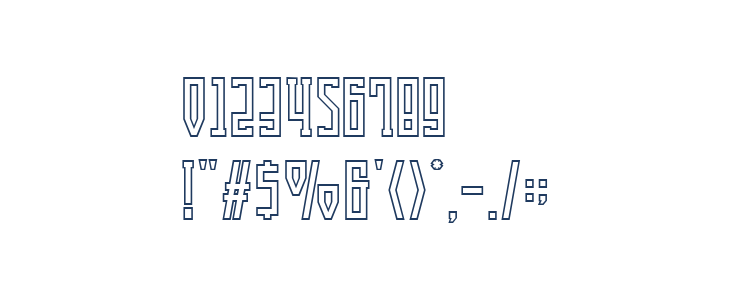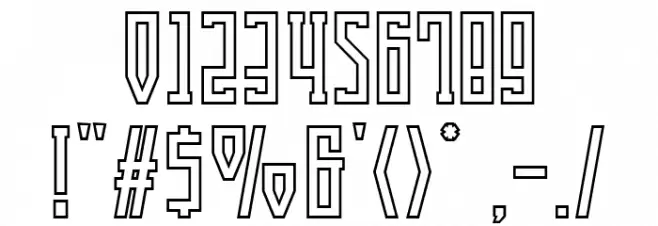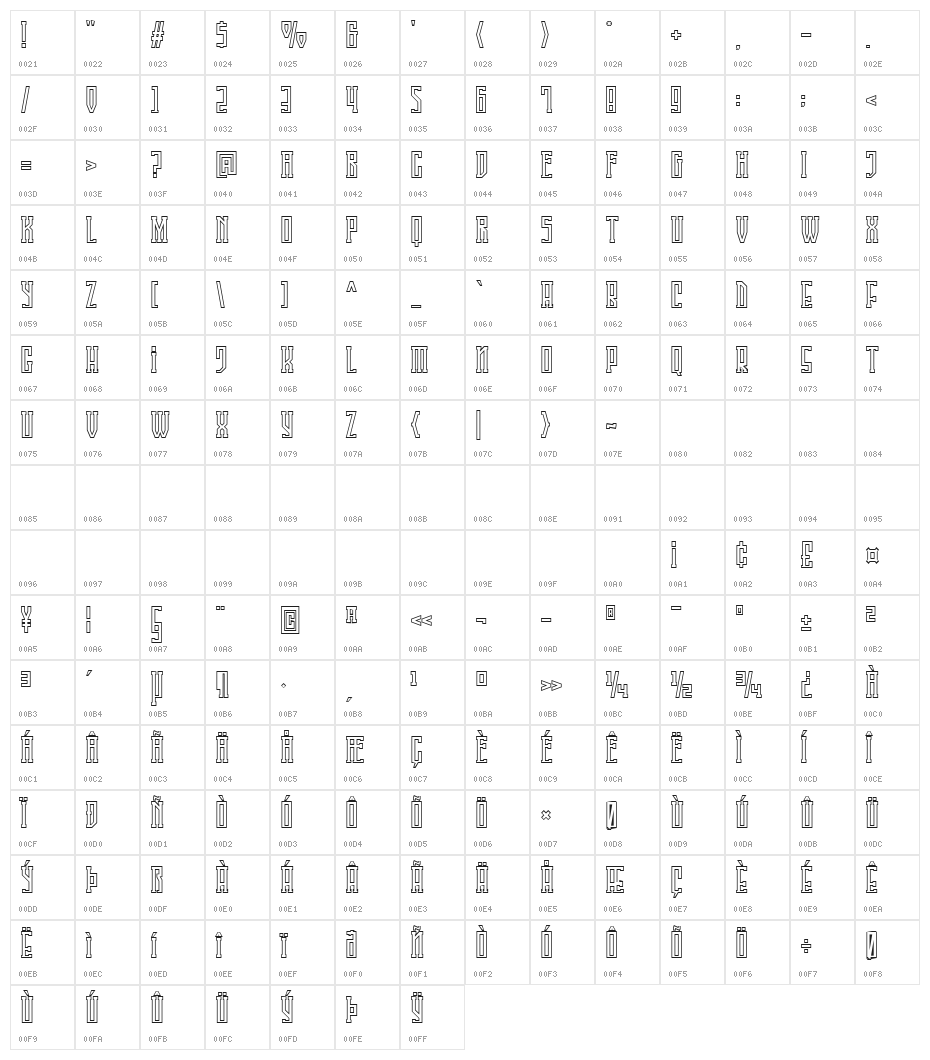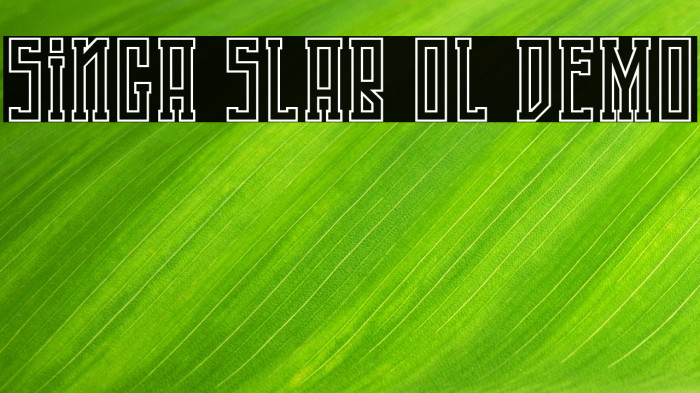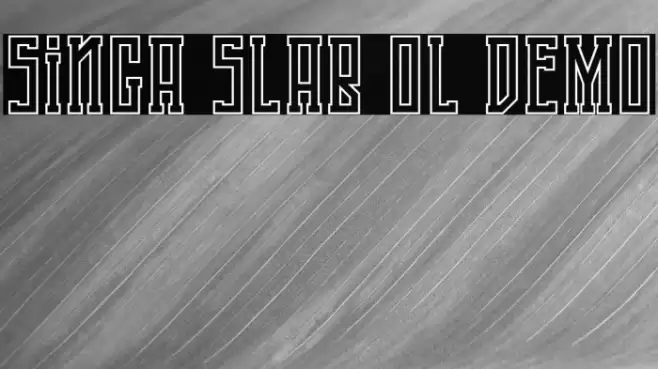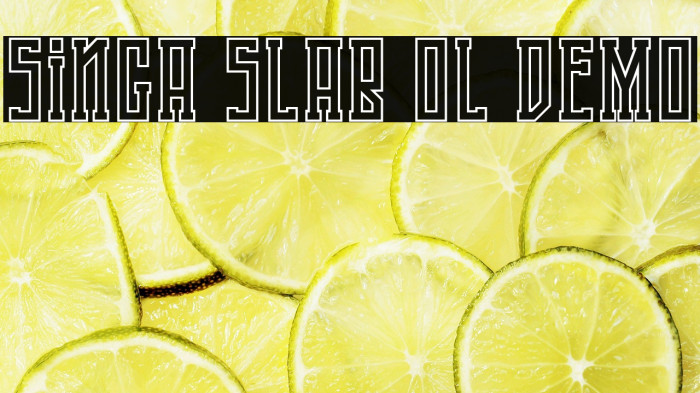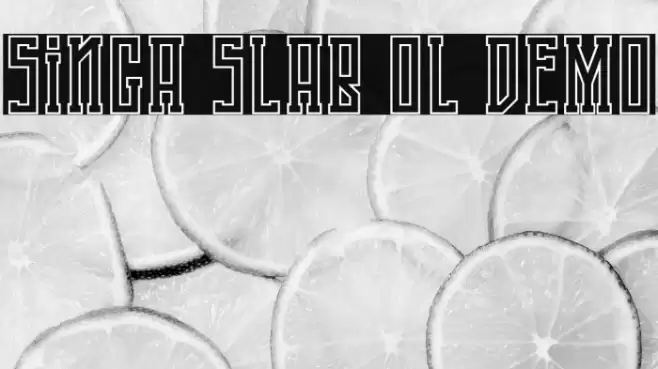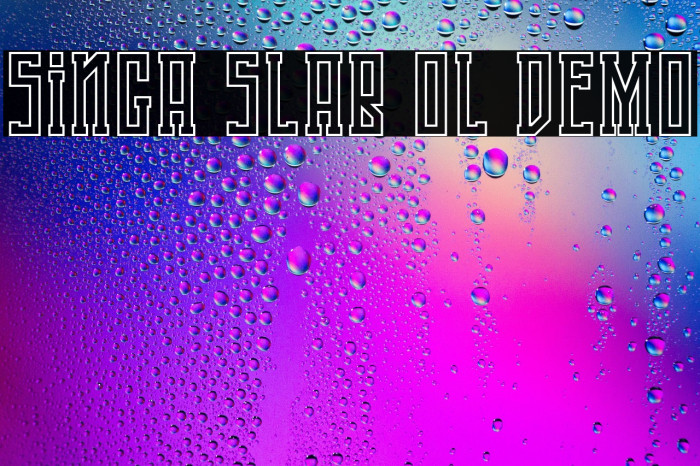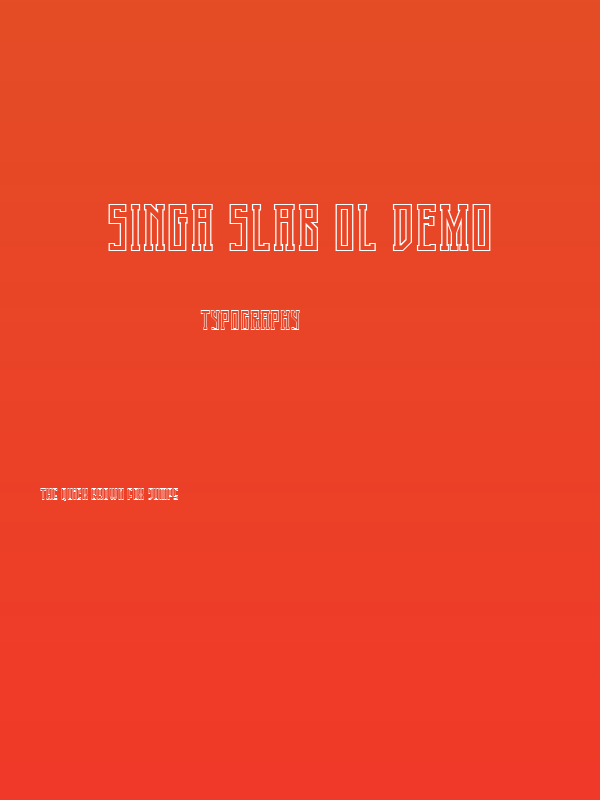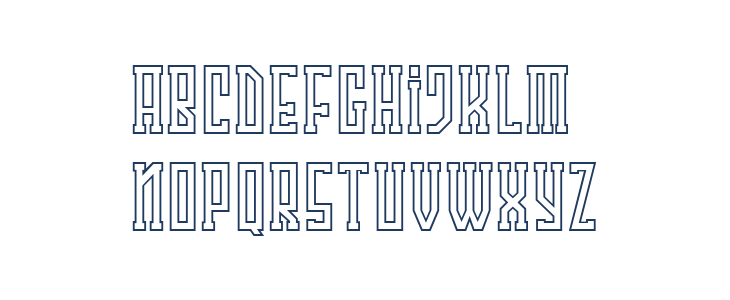
Singa Slab OL DEMO Font
Singa Slab OL DEMO Description
This font features a bold, outlined slab serif style with a strong geometric structure. Each character is defined by thick, uniform strokes that create a sense of stability and strength. The uppercase and lowercase letters maintain a consistent height, contributing to a cohesive and balanced appearance. The numerals and special characters are designed to match the boldness of the alphabet, ensuring a harmonious look across all text. The font's outlined nature adds a unique dimension, making it stand out in any design. Its clear and legible form makes it suitable for various applications, from headlines to branding.